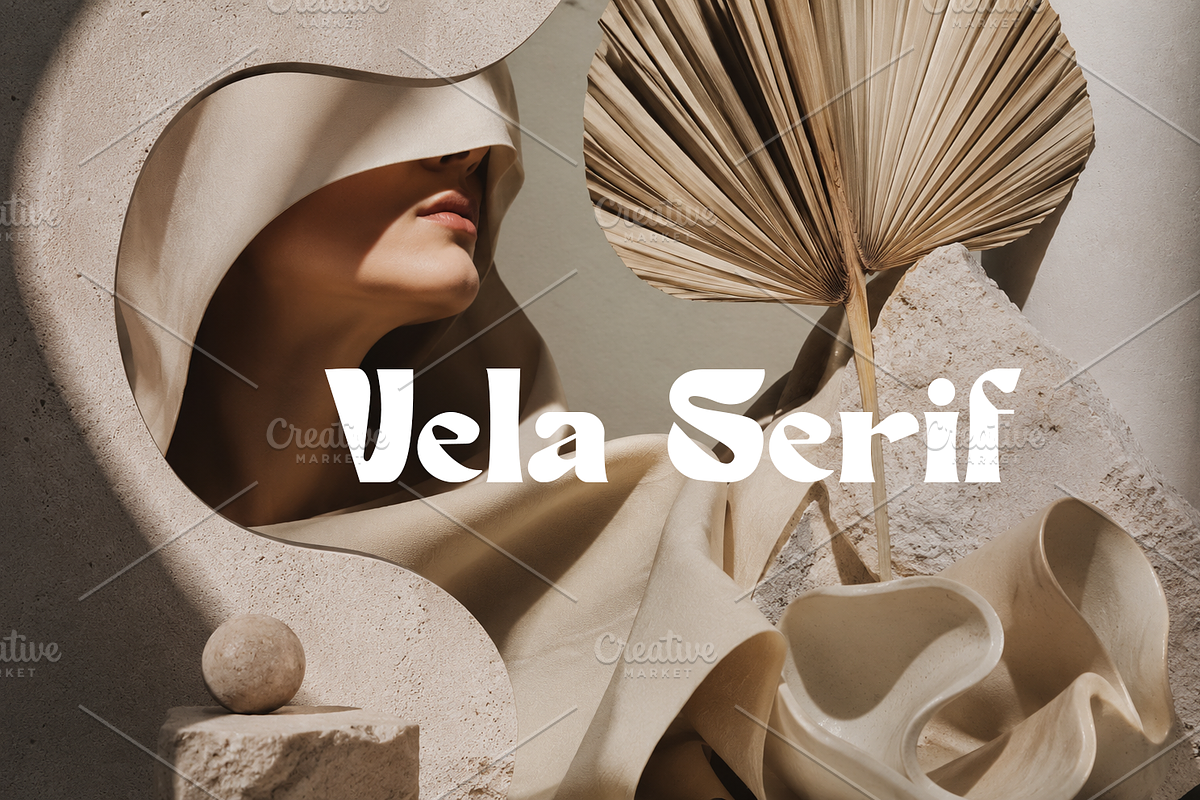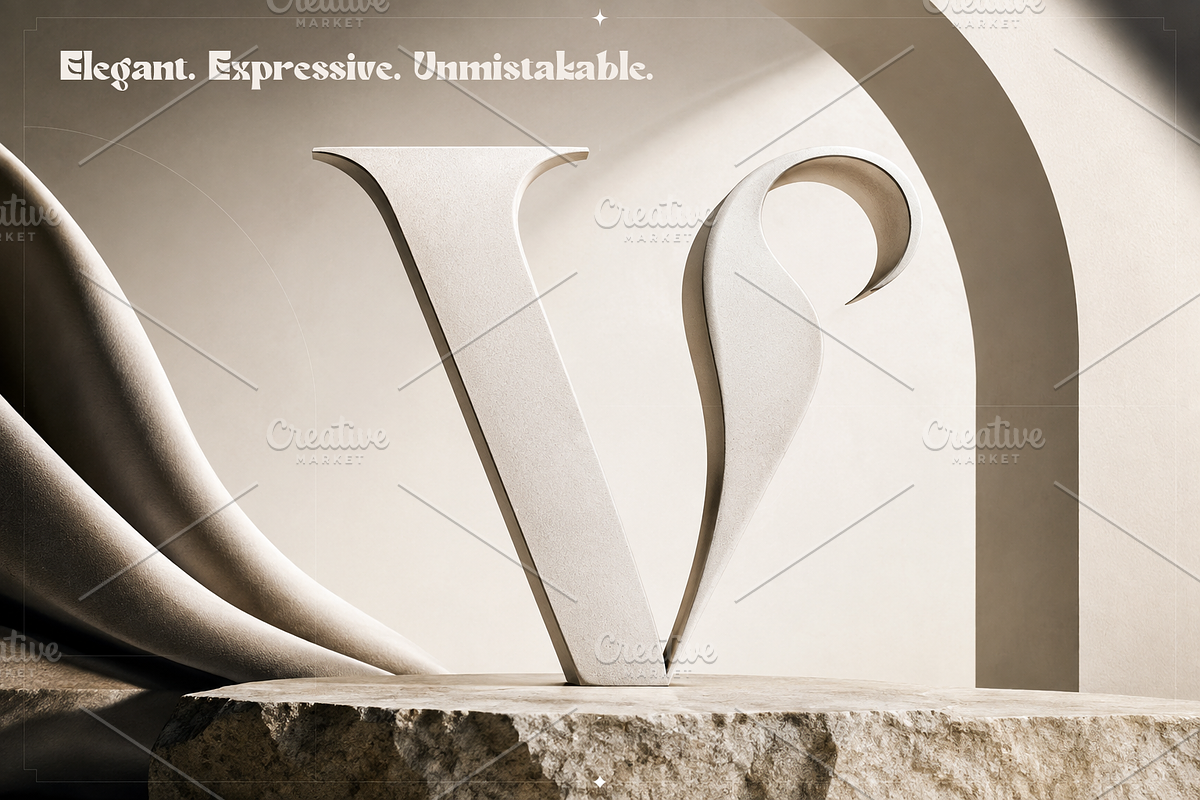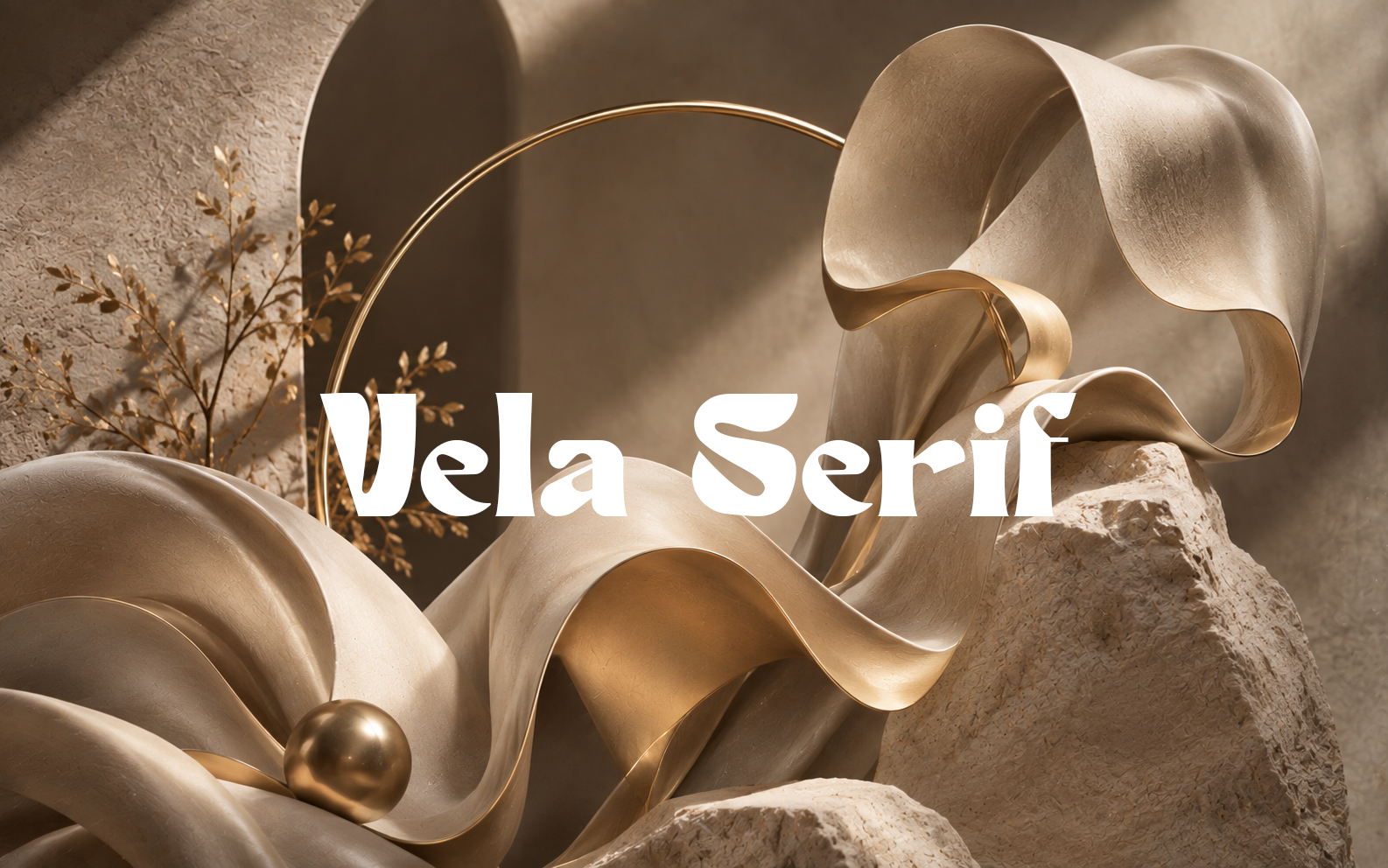
Elegant. Expressive. Unmistakable.
Vela Serif is a bold display serif created for brands that refuse to look ordinary.
With dramatic curves, distinctive serifs and expressive letterforms, Vela brings an editorial and artistic character to every word.
Designed to make headlines, logos and visual identities stand out, it works beautifully across fashion, beauty, luxury, editorial, packaging, posters, invitations and creative branding.
One typeface. A strong visual personality.
Use Vela when your typography needs more than readability — when it needs presence.
Perfect for
Luxury & fashion branding
Editorial design
Logos & wordmarks
Beauty & lifestyle
Packaging
Posters & campaigns
Magazine covers
Invitations & stationery
Creative headlines